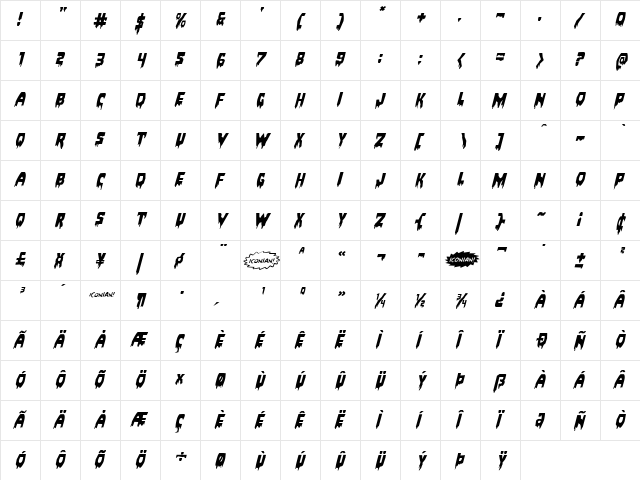
Bloodlust Expanded Italic Expanded Italic
Design Context for Bloodlust Expanded Italic Typeface
Bloodlust Expanded Italic carries an unsettling edge — its distorted letterforms are built to unsettle, perfectly suited to horror, Halloween, and dark creative work. The dynamic lean of this cut emphasises speed and emphasis in any layout.
Perfect for anything that needs to unsettle — game titles, horror branding, and macabre invitations.
Font Pairing: Pair with a clean neutral sans-serif for body copy to let Bloodlust Expanded Italic's character lead without overwhelming the composition.
Pro Tip: Use Bloodlust Expanded Italic at larger display sizes for maximum impact. Consider generous tracking to let the disturbing character of each letterform breathe.